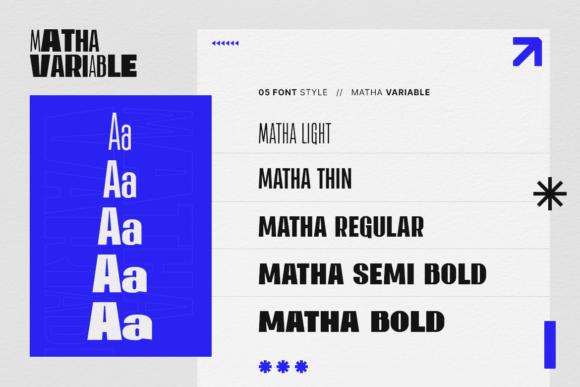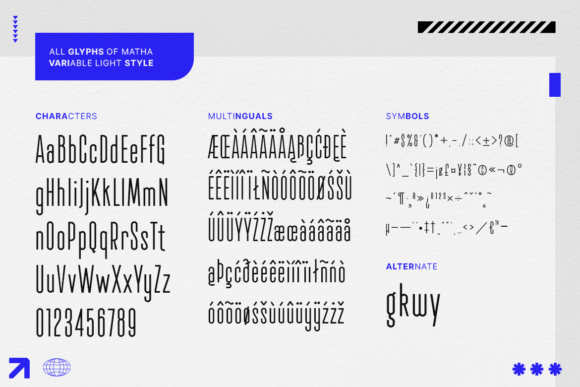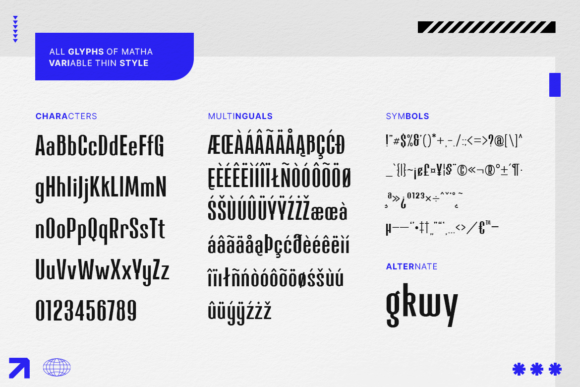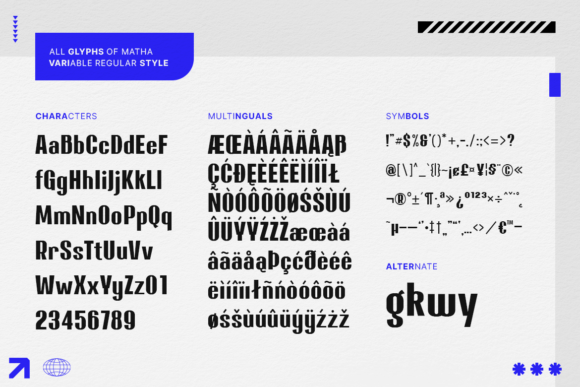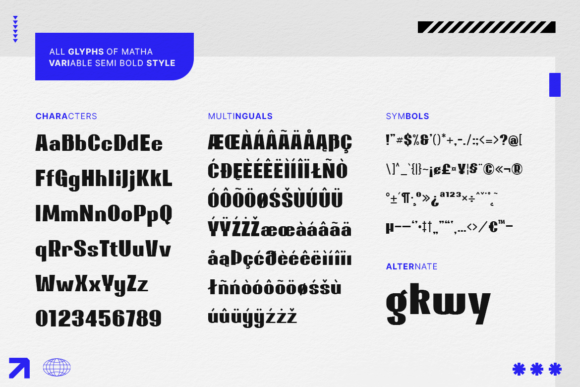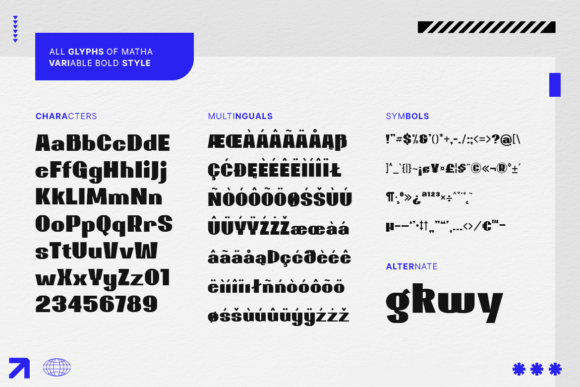
Introduction to Matha Font
Introducing Matha – this exceptionally versatile sans serif variable font is the answer to a myriad of design demands.
The beauty of Matha lies in its clean lines and adaptable weights, making it an ideal match for multifaceted design applications – from establishing bold brand identities and crafting striking web designs, to creating impactful editorial layouts and engaging user interfaces Matha’s modern and minimalist design ensures exceptional readability, enhancing the visual appeal and comprehensibility of your message.